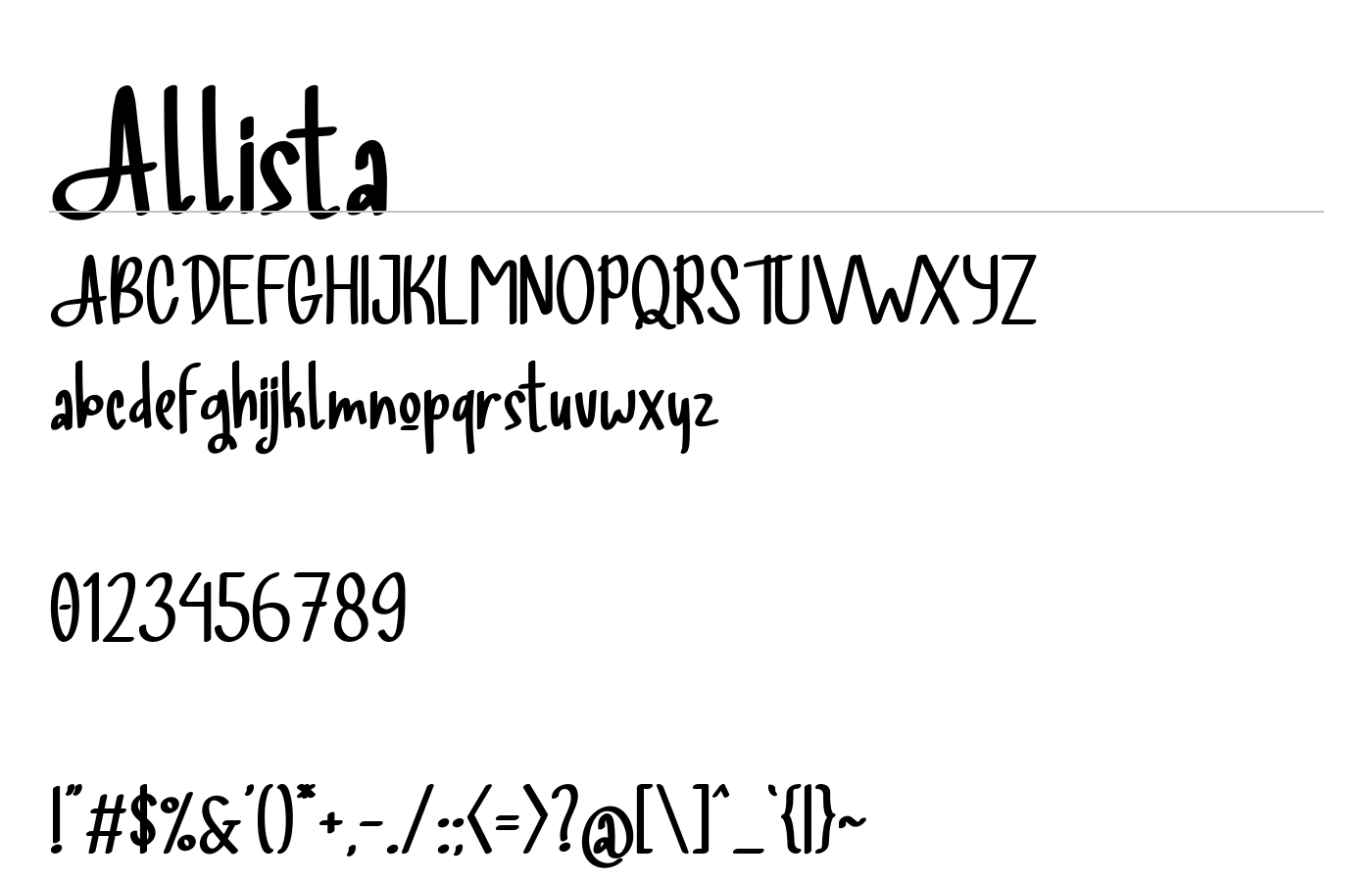
Allista is a playful, hand-drawn sans serif font with a casual, friendly feel. Its tall, narrow letterforms and uneven strokes give it a lively, informal personality perfect for creative, whimsical designs. This font works well for logos, headlines, invitations, and other projects that benefit from a personal, approachable touch.
Allista Font
About Allista Font